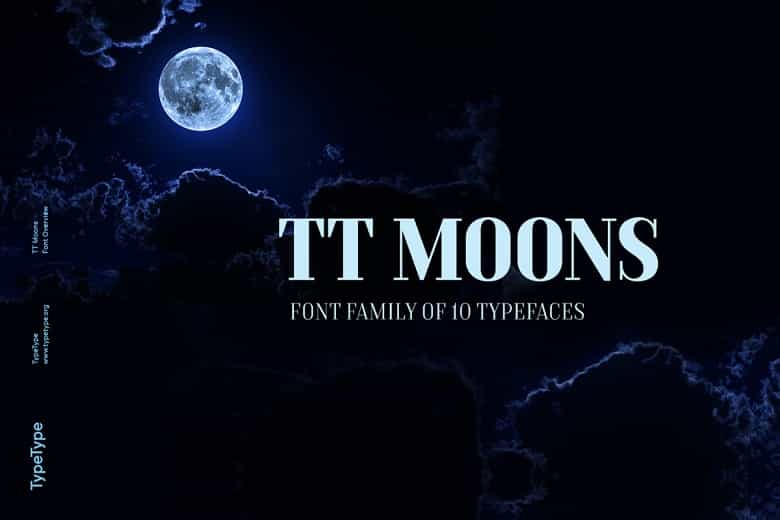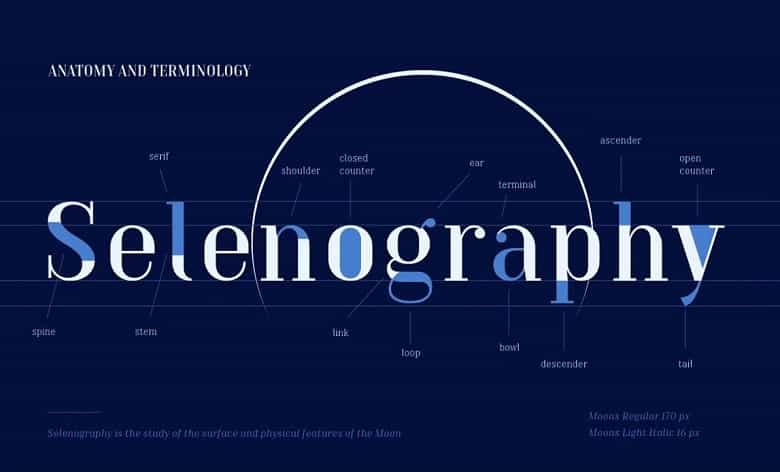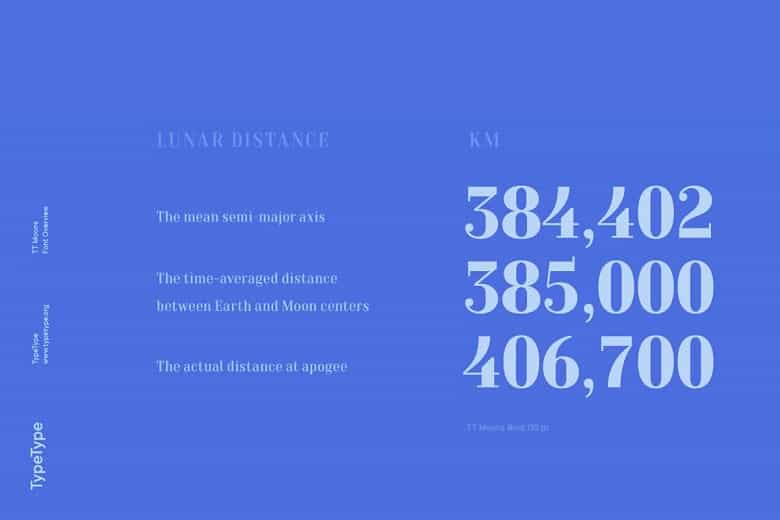
TT Moons is a thin and black contrast serif font family. This font family is quite useful in the classical design styles. TT Moons is a font in the glyptic modern group of fonts. Appropriate usage of this typeface will be in magazines, books and newspapers. Due to its slim and 5 weights (Thin, Light, Regular, Bold, Black),